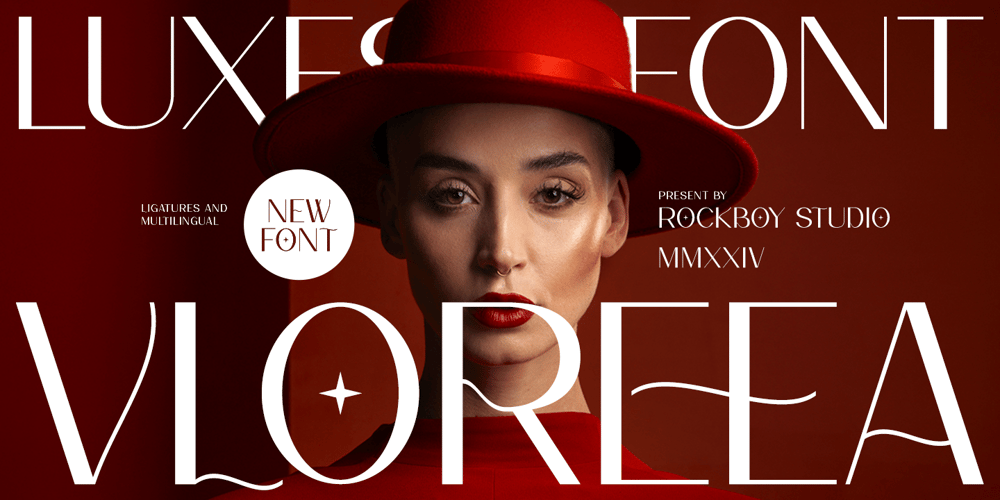
Vloreea Font Family was designed by Hayinah and published by Rockboys Studio. Vloreea contains 1 styles and family package options. Vloreea is a modern sans-serif font characterized by its clean lines and contemporary design. If you’re looking for details about this font or its usage, here’s a brief overview:Key Features: Design Style: Vloreea has a modern aesthetic with a focus on readability and simplicity. It typically features geometric shapes and balanced proportions. Use Cases: Ideal for branding, web design, and any projects requiring a sleek and professional appearance. It’s often used in headings, logos, and body text. Variations: It may come in multiple weights and styles, such as regular, bold, and italic, providing versatility for different design needs. If you need to download or purchase Vloreea, check font marketplaces like MyFonts, Fontspring, or the designer’s official website. Make sure to review licensing options to ensure it fits your project’s requirements.